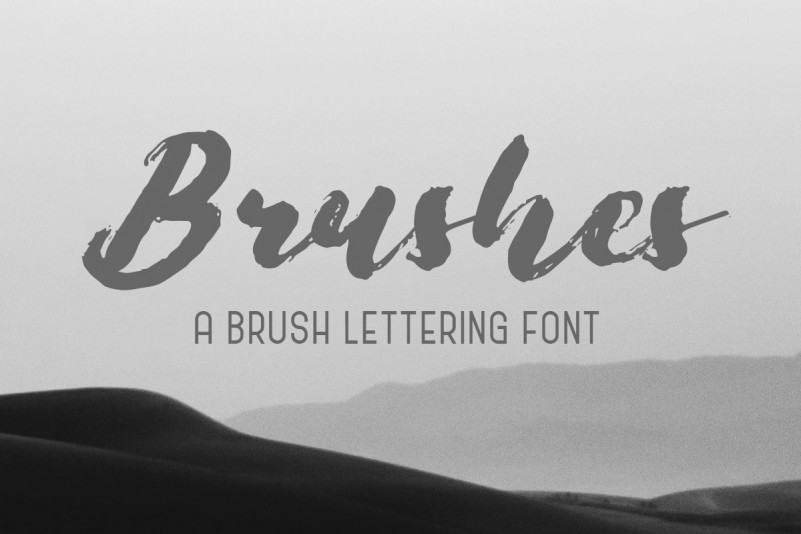
Brushes Brush Font
Thank you for looking Brushes Brush Font. This is a brush lettering font. It’s a brush lettering font with bold strokes that will make it look very stand out. Brushes Brush also has impressive movement with clean look. You can use it for all your needs, such as a logo, printed quotes, badge, insignia, packaging, headline, poster, t-shirt/apparel, greeting card, and wedding invitation, & etc.